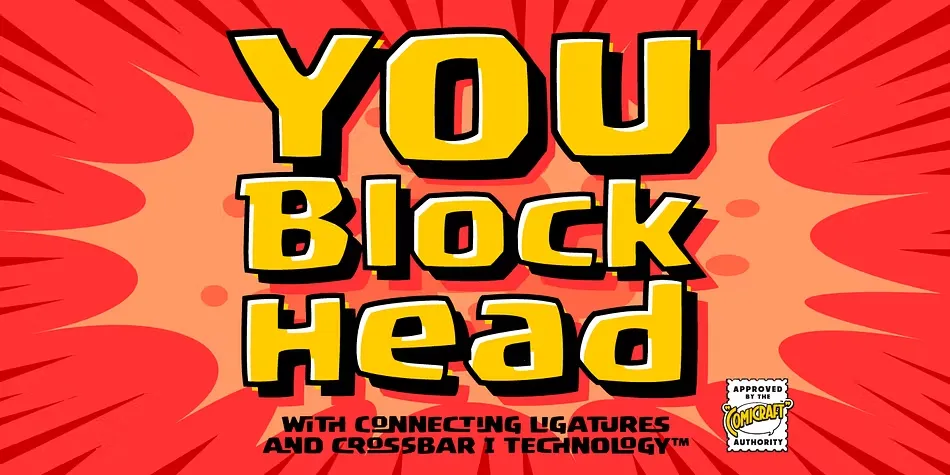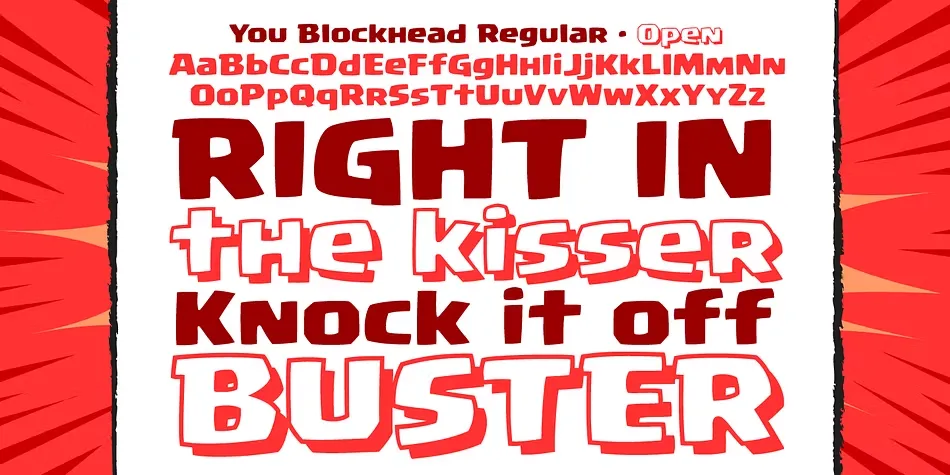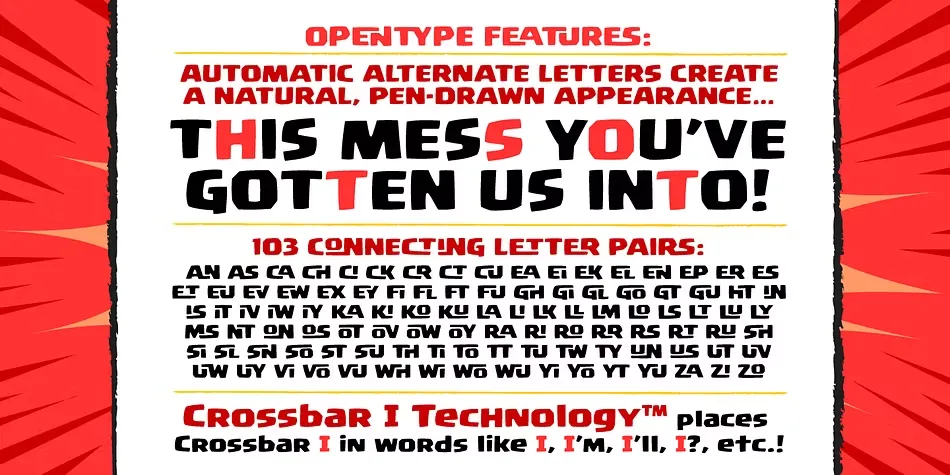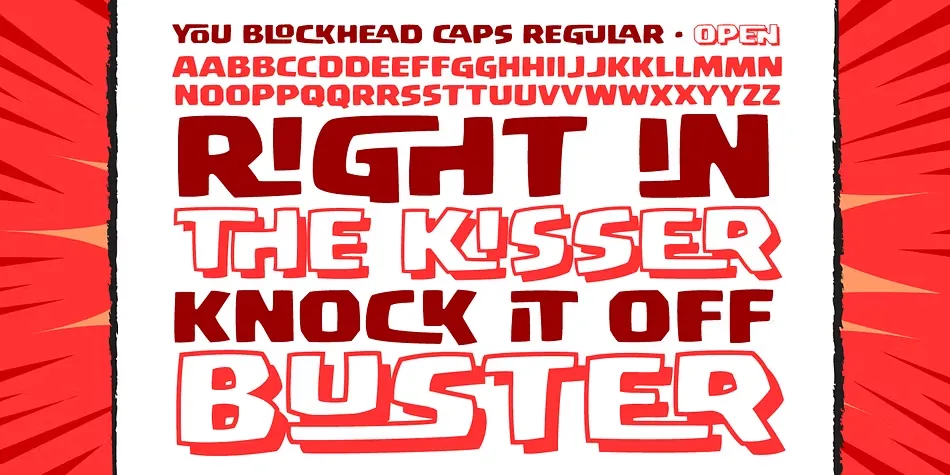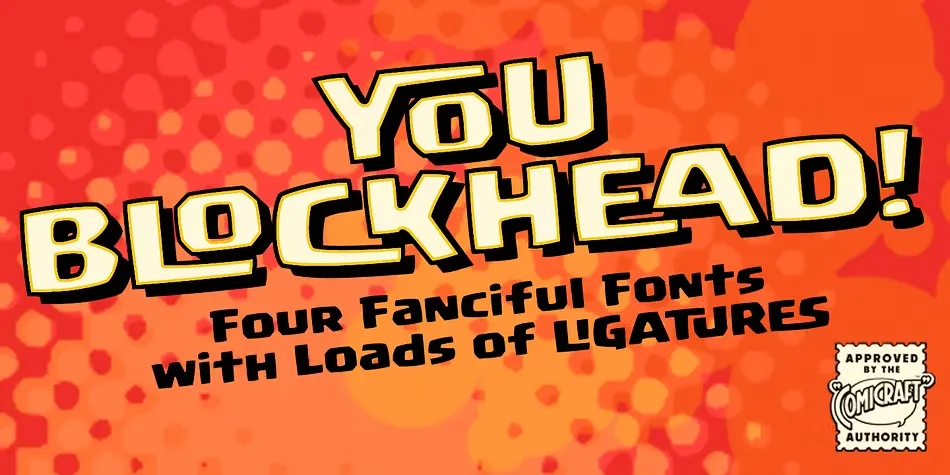
About You Blockhead Font
I’m a typographer and graphic designer who spends a lot of time testing typefaces for branding work. Recently I discovered the You Blockhead Font while searching for something bold and full of personality. Its playful style made me stop and take a closer look.
I decided to try it in a branding project for a gaming-inspired design, and the results were exciting. The letters gave the logo a fun but strong identity, unlike any regular font I’ve used before. Since many designers search for fonts that combine humor with clarity, I wanted to share this review.
You Blockhead Font and the Designer
The You Blockhead Font is a comic font created by John Roshell and published by Comicraft, a studio well known for expressive lettering styles. This font family has four styles, including blockhead caps and regular variations, making it versatile for design projects. The font gained recognition after being featured in the logo and branding for the popular game Clash of Clans and in the Image comic The Beef. Its sturdy stance and interlocking pairs give it a distinctive look that stands out in digital and print.
Features of You Blockhead Font
The design focuses on visual communication. Every stroke carries weight without losing clarity, which is important when creating impactful artwork. Whether used for a website, poster, or logo, the blockhead caps offer strong presence and personality. The font includes full typographic support with numerals, punctuation, and OpenType features for creative control.
The You Blockhead Font is versatile enough for many creative projects. Its bold, comic-inspired style makes it a great choice for branding work in gaming, entertainment, or youth-focused industries. The font’s sturdy design is perfect for logos that need personality while still being readable across digital and print media.
This typeface is also perfect for comic-style artwork, posters, or visual communication pieces where energy and impact matter. The wide set of characters and opentype features make it adaptable, whether you’re working on custom branding or large creative collections. If you’re searching for a typeface that feels modern, creative, and versatile, this one deserves a spot in your toolkit.